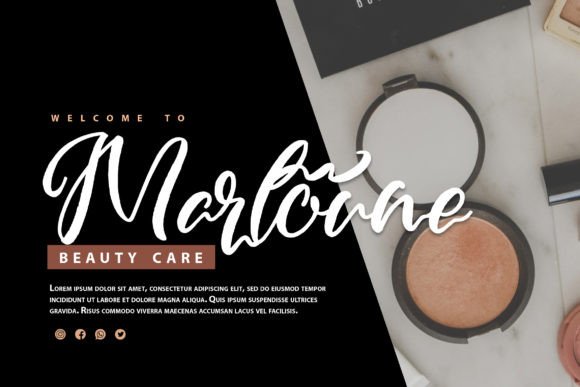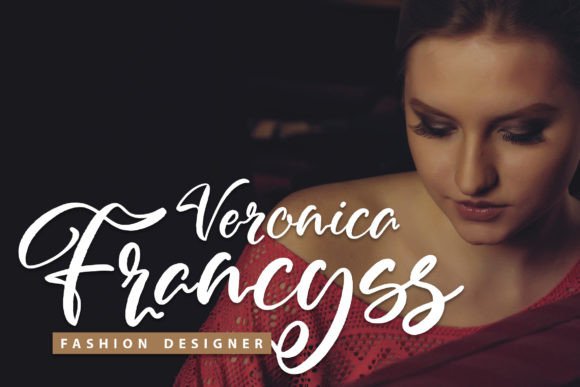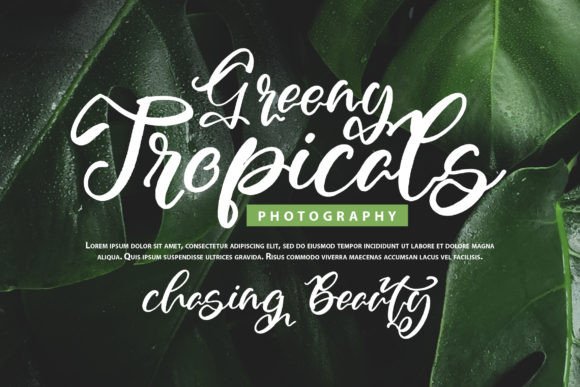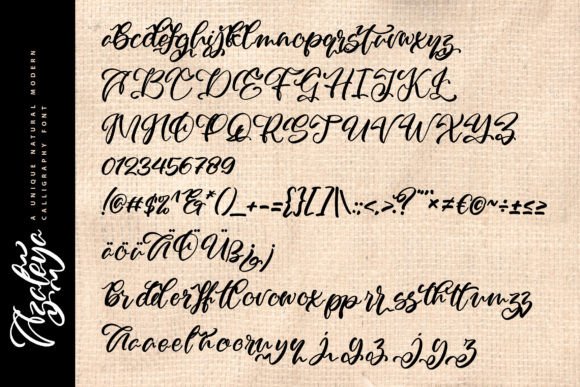
Azaleya Font
The Azaleya Font Download is a stylish handwritten script with a natural and authentic look. Designed to mimic the flow of real handwriting, it adds warmth and character to any project. Whether you are creating crafts, invitations, or branding designs, Azaleya offers a versatile style that feels modern yet timeless. Its organic strokes and smooth flow make it an essential typeface for both digital and print applications.
A Natural and Stylish Handwritten Script
The Azaleya script font balances elegance with informality. As a result, it feels personal and approachable while still maintaining a professional edge. Furthermore, its realistic handwritten quality ensures your designs stand out with an authentic feel.
Handwritten fonts always make stationery more memorable. The Azaleya Font is perfect for wedding invitations, thank you cards, seasonal greetings, and birthday stationery. Because of its natural flow, it ensures every card feels heartfelt and unique. In addition, it helps elevate personal projects with a touch of elegance.
Branding and Logo Design with Azaleya Font
Typography shapes how people connect with brands. The Azaleya handwritten font is ideal for boutique logos, product packaging, and marketing materials. Its stylish yet natural look conveys authenticity and sophistication. Therefore, it is especially useful for lifestyle, beauty, and artisanal brands.
Posters, Quotes, and Creative Projects
The Azaleya Font Download also works beautifully for posters, book covers, inspirational quotes, and magazines. Its smooth handwritten strokes ensure text remains legible while adding visual interest. Consequently, it becomes a reliable tool for both designers and marketers.
In today’s digital age, fonts must be adaptable across platforms. The Azaleya typeface integrates seamlessly into Instagram posts, Pinterest pins, YouTube thumbnails, and blogs. Because of its natural handwritten vibe, it gives digital content a friendly and stylish personality.
Why Designers Choose Azaleya Typeface
Designers love fonts that combine authenticity with versatility. The Azaleya handwritten script is both stylish and functional, making it suitable for professionals and hobbyists alike. Moreover, its timeless appeal ensures it remains relevant for years to come.
Add Natural Elegance to Your Projects Today
If you are looking for a handwritten script that feels stylish, natural, and versatile, the Azaleya Font Download is the perfect choice. From invitations and greeting cards to branding, posters, and digital designs, it enhances every project with authenticity and charm. Finally, download Azaleya today and bring elegance to your creative work.